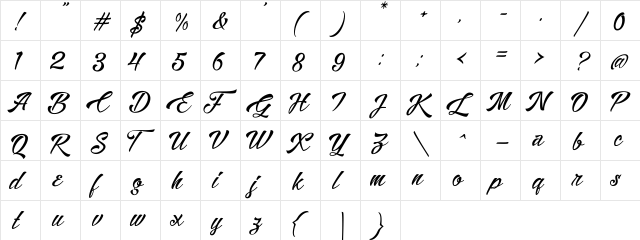
Alisandra Demo Regular
Design Context for Alisandra Demo Typeface
Alisandra Demo is a composed and adaptable typeface that performs quietly and consistently across a wide range of design contexts.